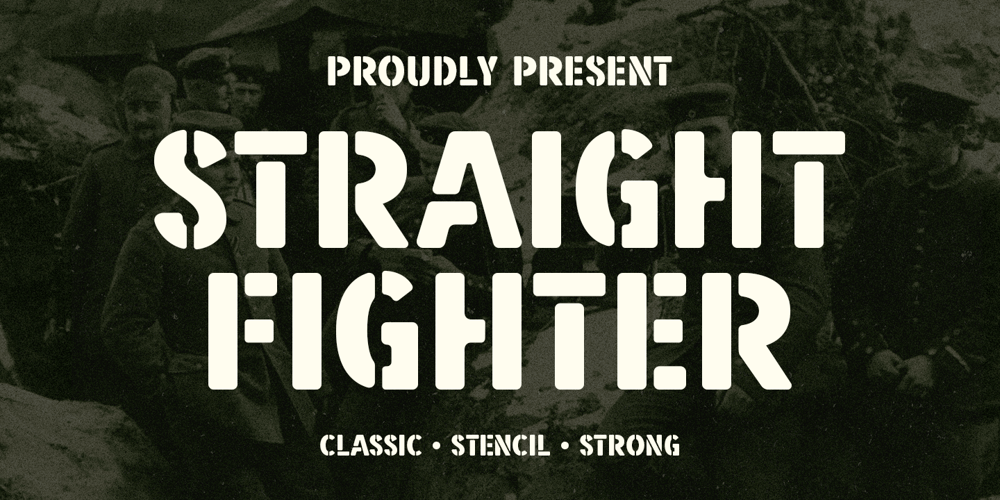
Straight Fighter Font Family was designed by Ahmad Ramzi Fahruddin and published by Arterfak Project. Straight Fighter contains 1 styles and family package options. Straight Fighter is a stencil font that exudes strength, masculinity, and bravery. Inspired by classic war posters, military style, and the punk scene. With the unique stencil cutting and letter shapes, this font features bold lettering that demands attention.It comes equipped with special characters and multilingual support, making it a versatile choice for a variety of design projects. Straight Fighter is particularly suitable for display, headlines, posters, editorials, patches, logotypes, branding, movies, flyers, and short quotes.If you want to convey a powerful message with your design, Straight Fighter is the perfect choice. Here’s what you’ll get : Uppercase Lowercase Numbers Symbols & punctuation Stylistic alternates Multilingual support. Thank you for your support!